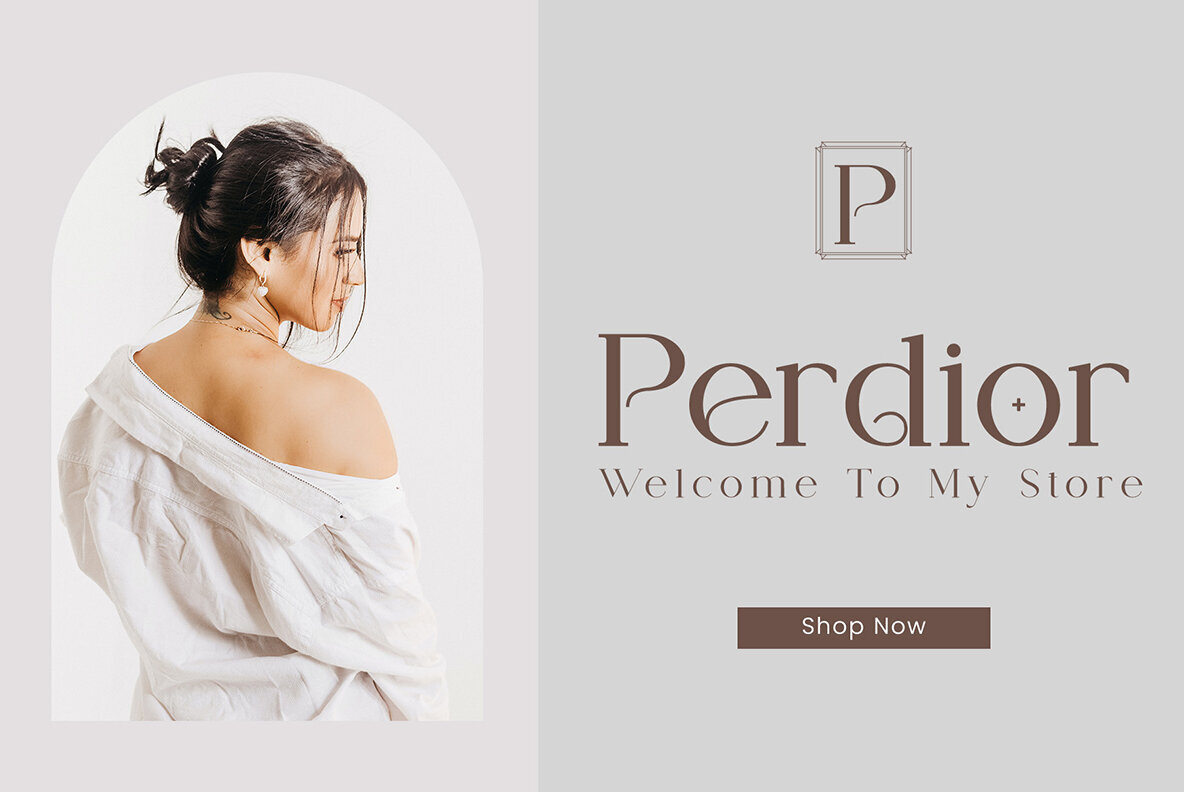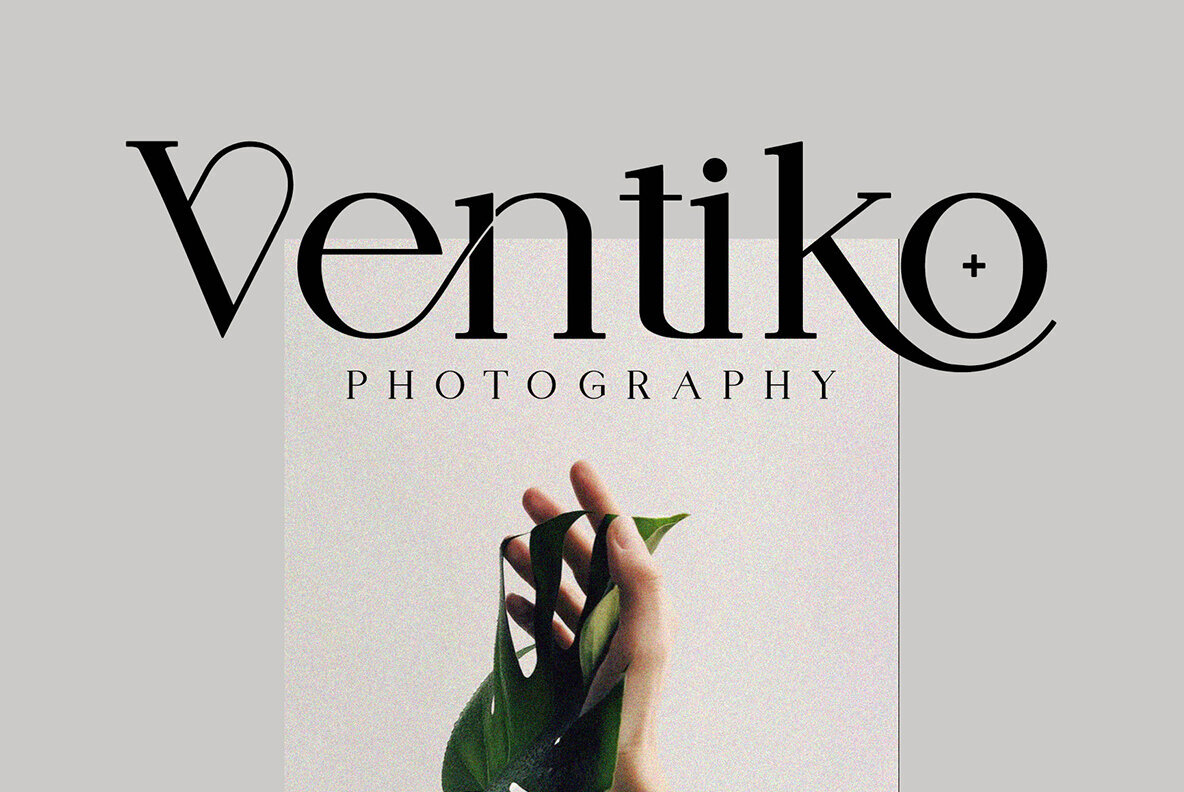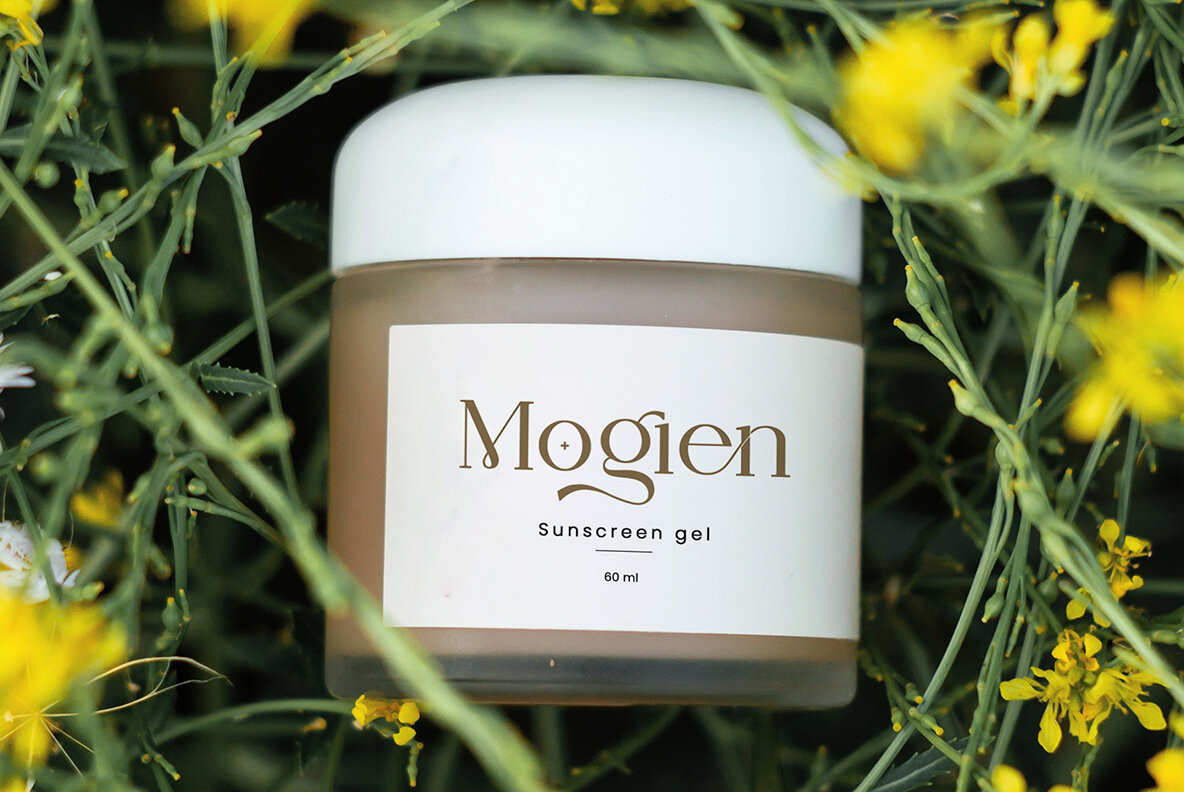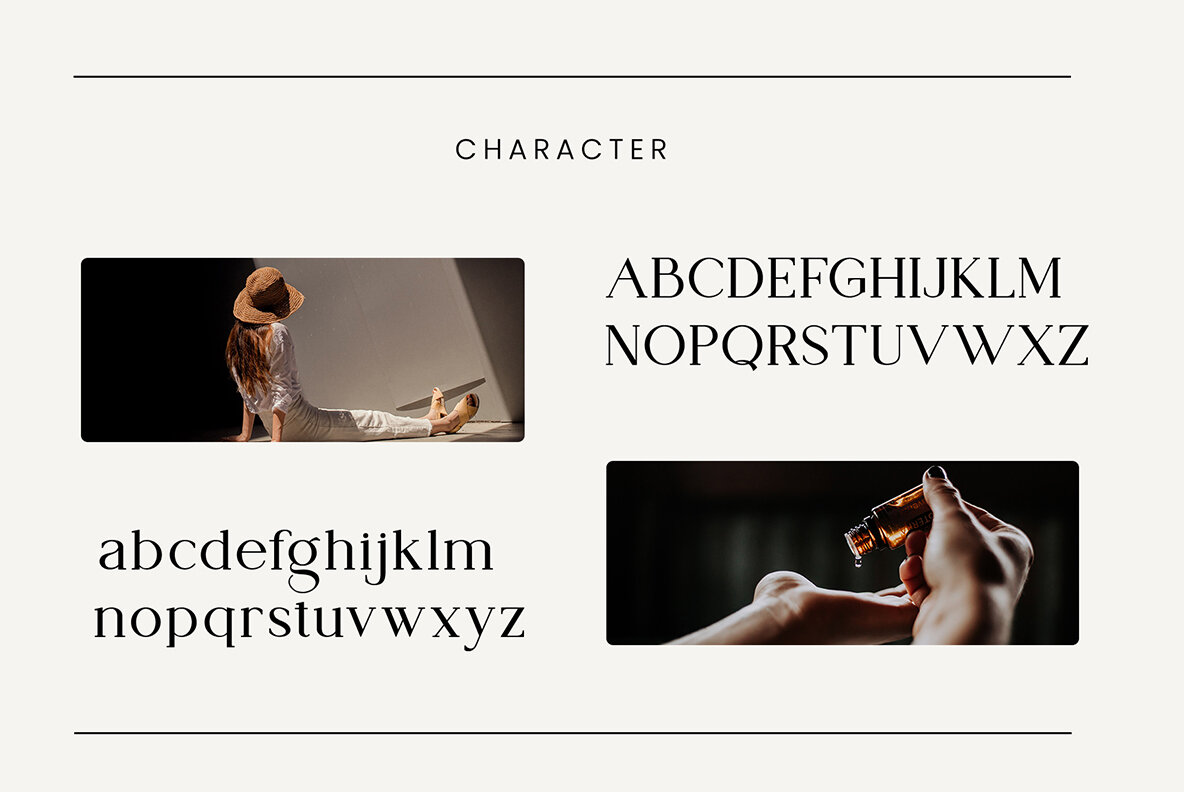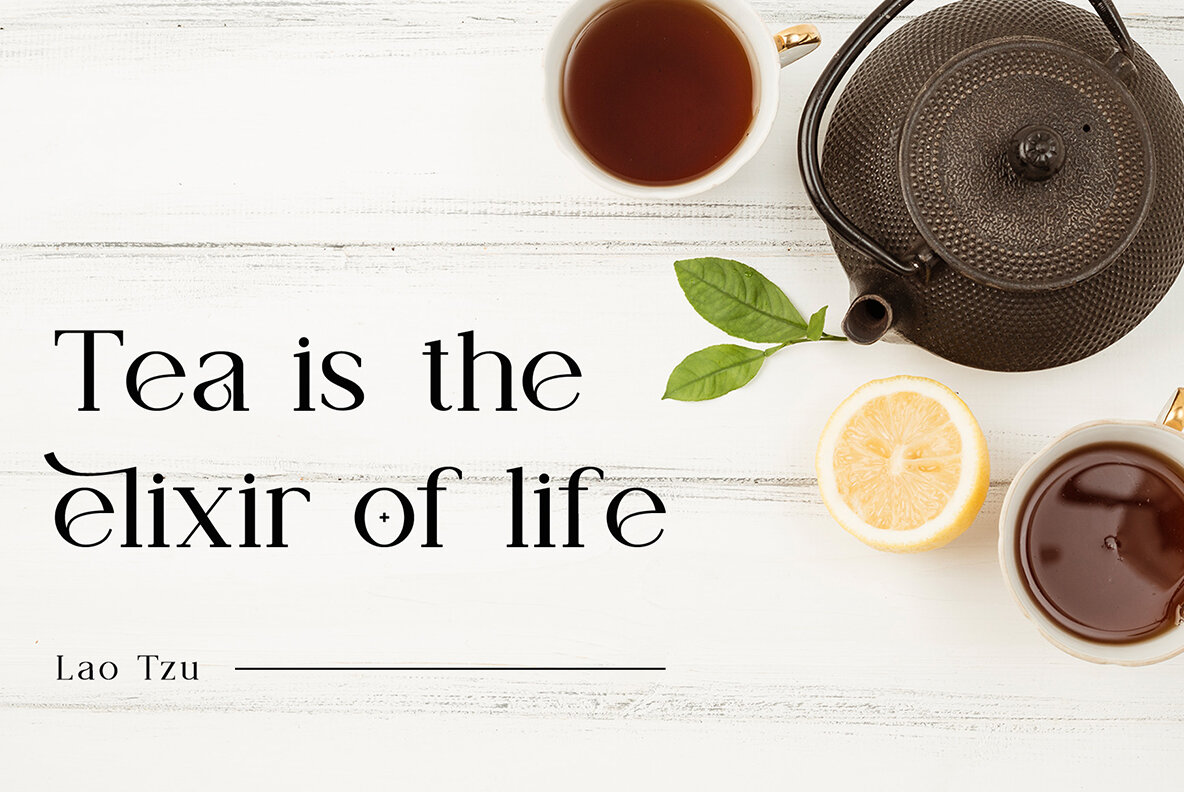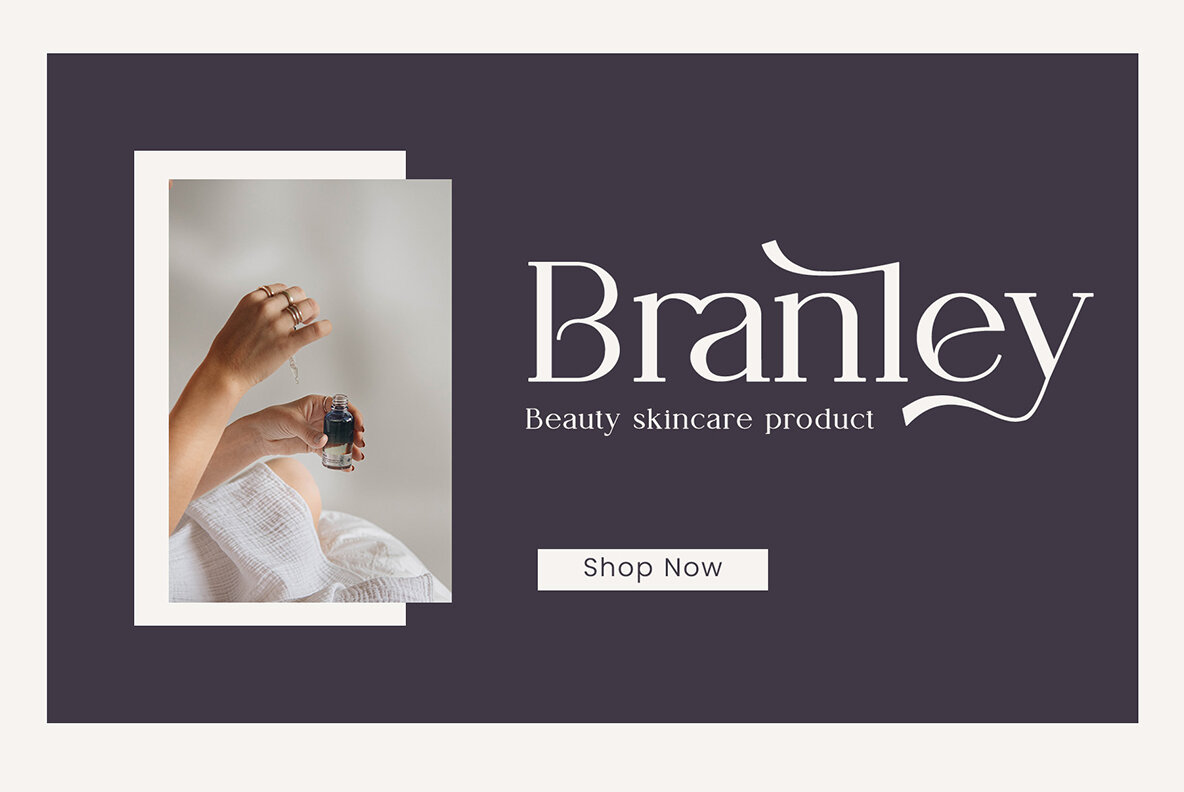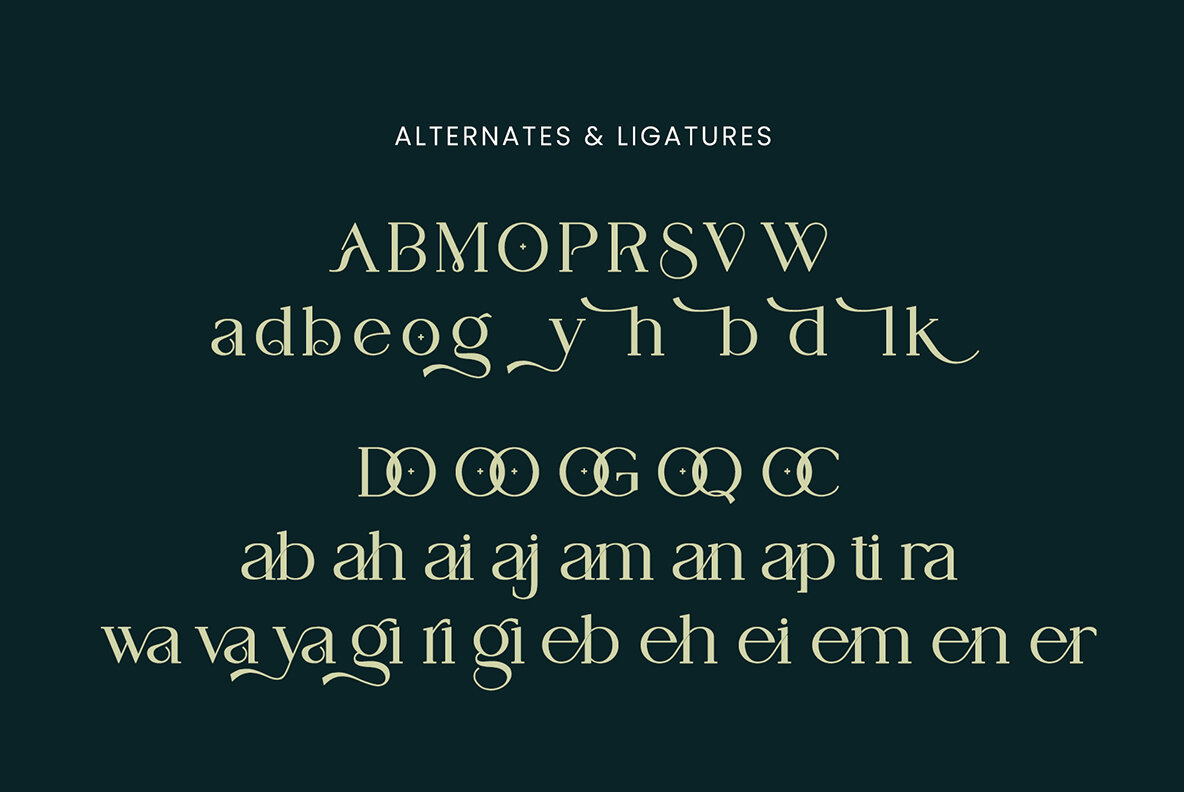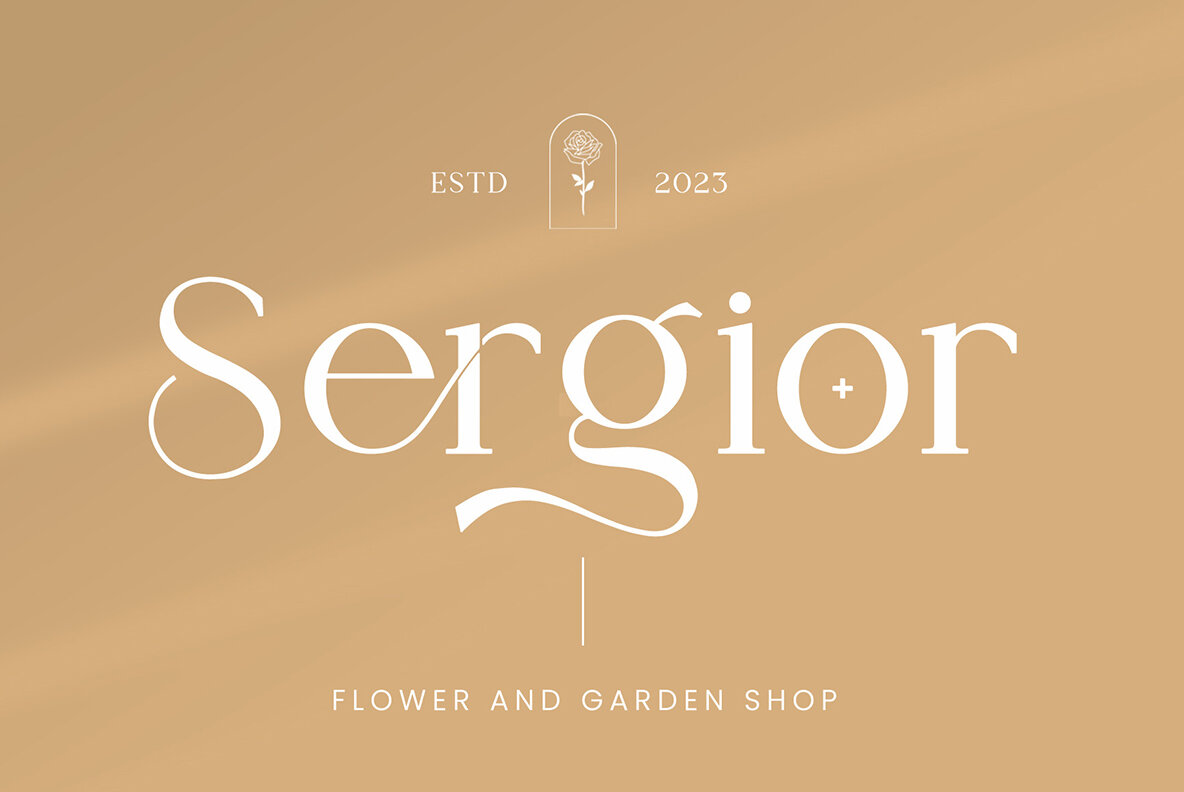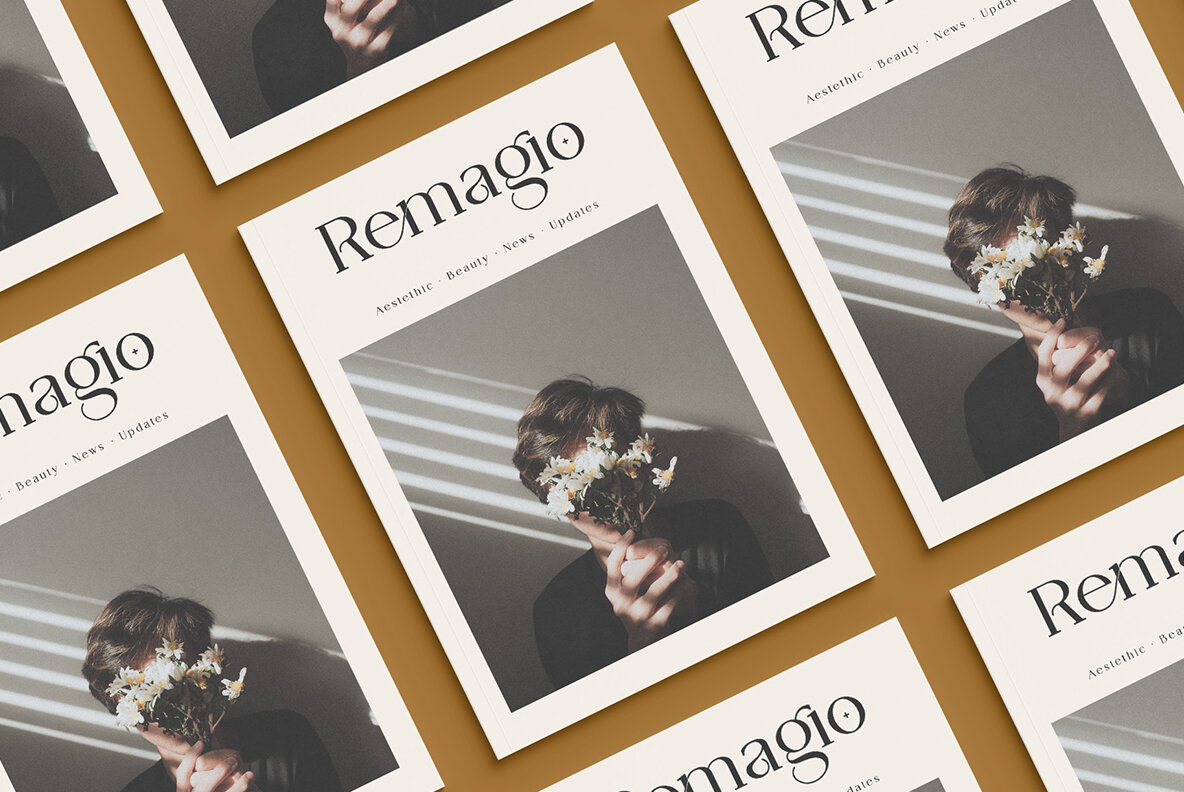
Vendya Font
Vendya Regular
The Vendya Serif font is a balanced and smooth typeface that combines elegance with a stylish flair. Its beautifully crafted characters make it an ideal choice for a range of design applications, including invitation cards, company logos, movie titles, business cards, book titles, and brand names. Vendya Serif is a subtle font that exudes sophistication, enhanced by its stylish alternations and ligatures, making it the perfect companion for any design project.Vendya Serif: Elegance and Versatility in Design